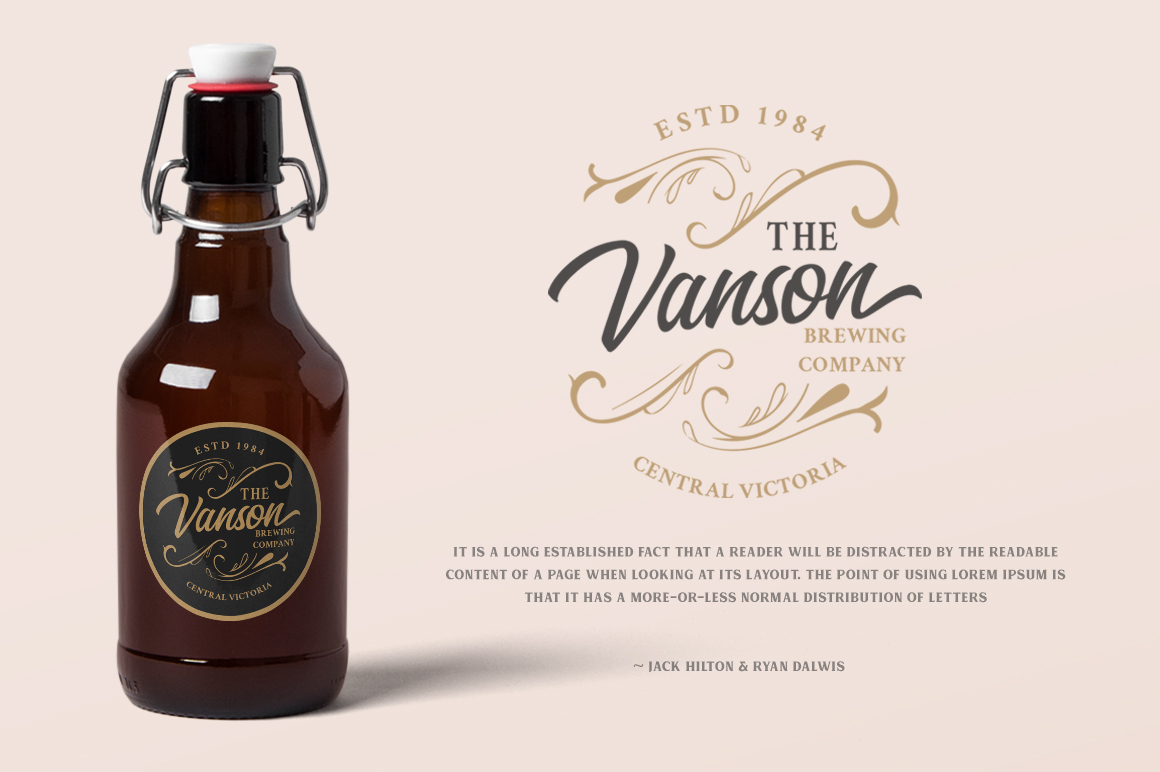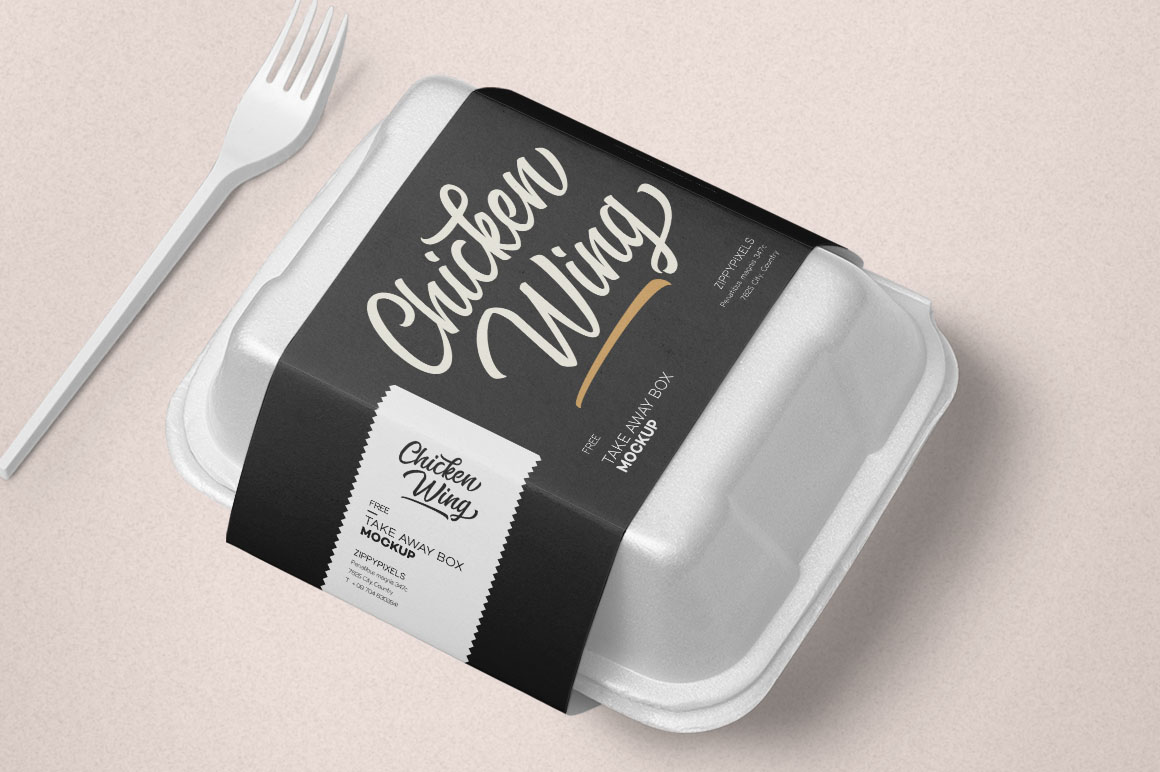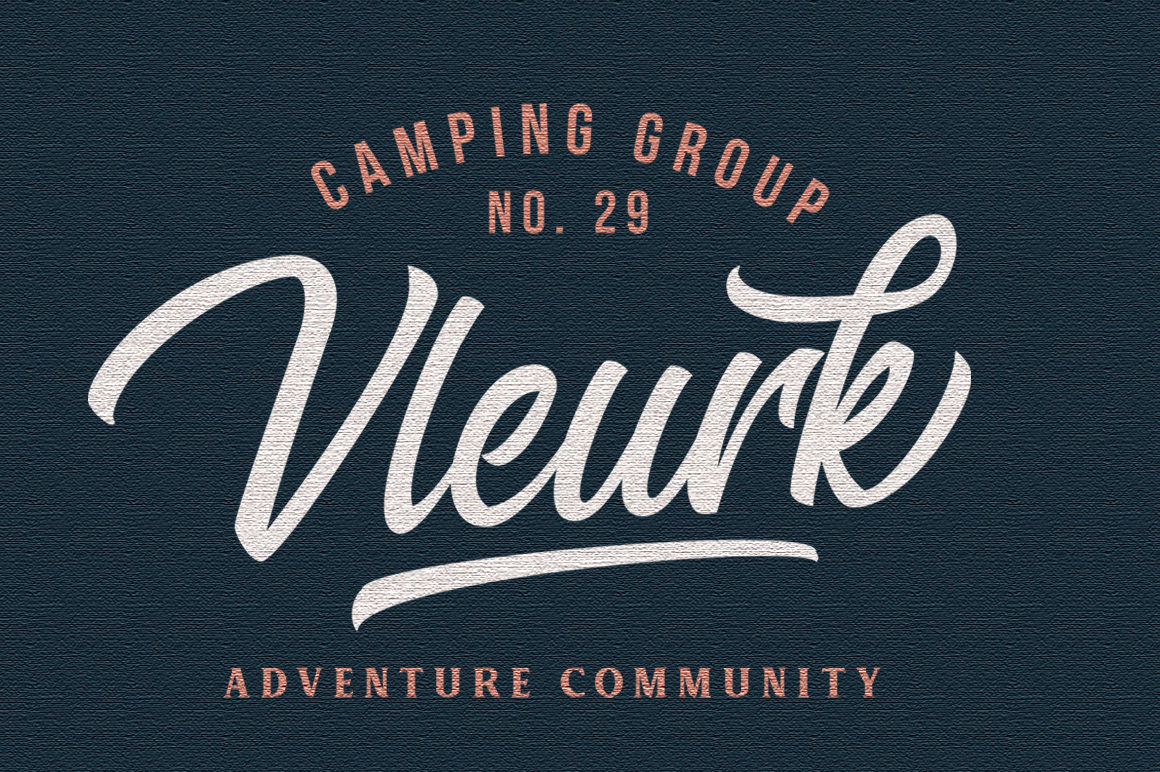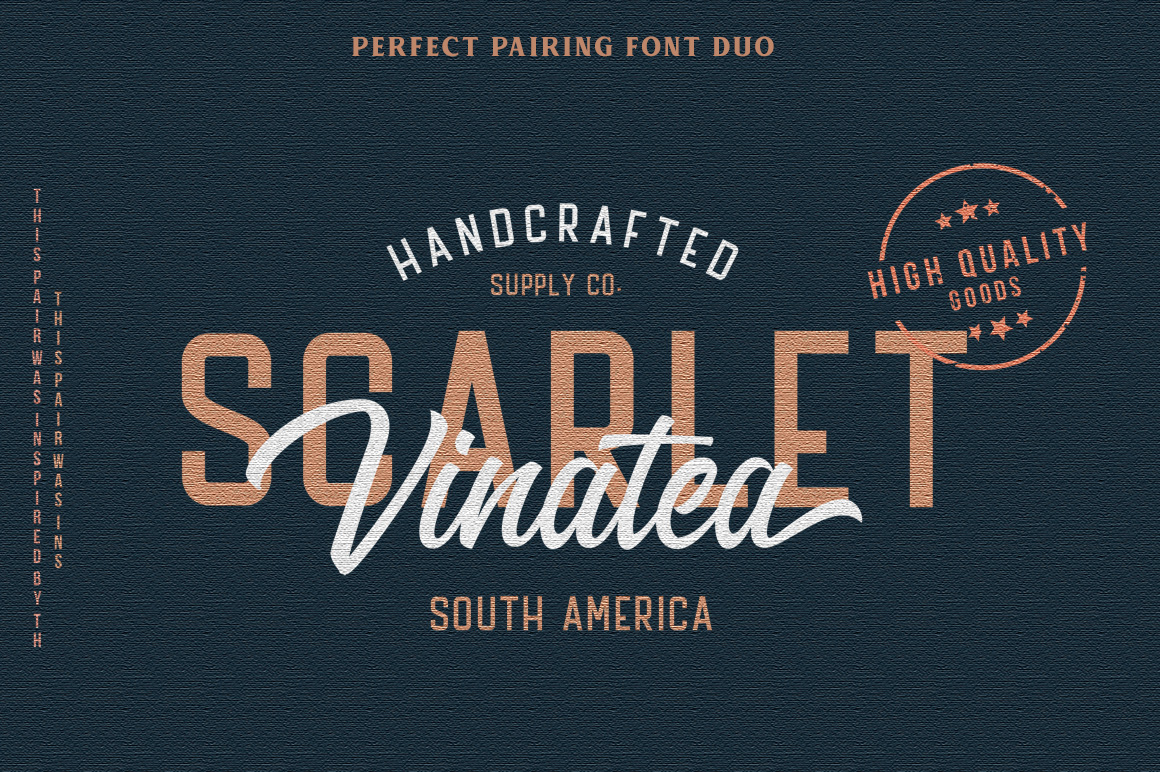
The Bredan Free Font
The Bredan Free Font was very inspired by modern vintage and retro style. This free typeface was designed by talented Vultype Co. If you like it don’t forget to check out the full version.